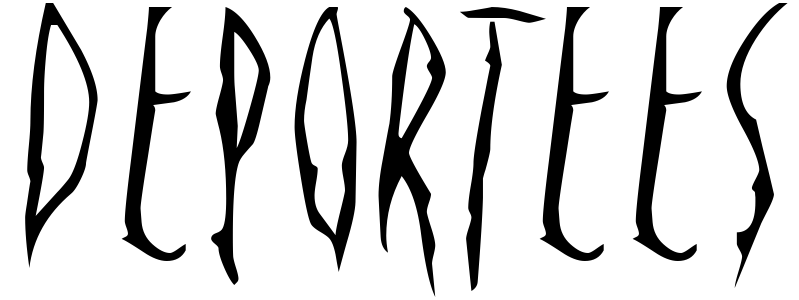
Deportees is a remarkable font designed by the talented Ray Larabie, a prolific typographer known for his imaginative and broad-ranging font designs. Deportees captures the essence of Ray Larabie's unique approach to typography, blending both modern and vintage aesthetic cues into a cohesive and striking typeface. This font stands out for its bold character designs, making it perfectly suited for a wide range of applications, from eye-catching headlines to compelling advertising copy.
The design of Deportees showcases a meticulous attention to detail, with each letter crafted to convey a specific tone and personality. The font features distinctive letterforms, with unique curves and angles that lend it a dynamic and energetic feel. This makes Deportees an excellent choice for projects that require a typeface with a strong visual impact, such as promotional materials, branding, and creative arts. The font's versatility is further enhanced by its readability, ensuring that it maintains its distinctive style without compromising on clarity.
Ray Larabie's Deportees is not just a font; it's a statement piece. It embodies a blend of creativity, innovation, and functionality. Its ability to adapt to various contexts while maintaining its distinctive flair is a testament to Larabie's expertise in font design. Whether used in digital media or print, Deportees has the potential to elevate the aesthetic of any project, making it a go-to font for designers looking to infuse their work with personality and style. With Deportees, Ray Larabie once again proves his ability to create fonts that are both visually engaging and highly practical.
Deportees